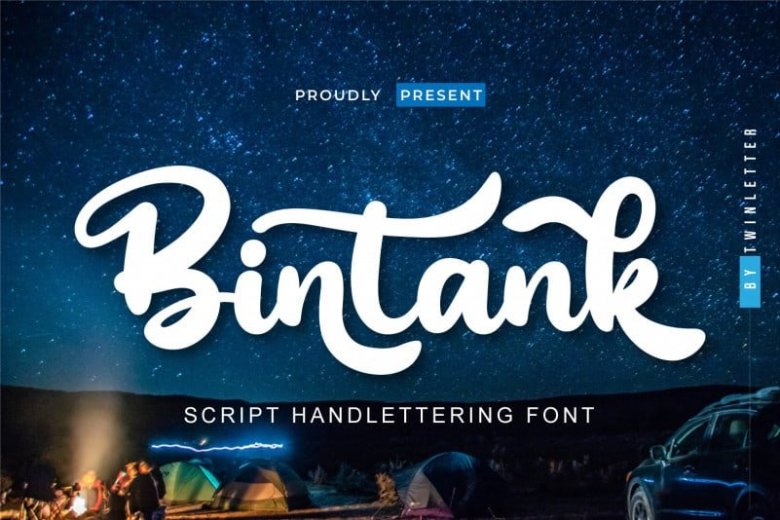
Bintank Script Font Free
Bintank Script Font is a playful script font made in freehand and abstract nuances but still beautiful and elegant when used.
This font is designed beautifully in each letter, there are alternate options in lowercase letters so that when written, it can produce words or sentences that are pleasing to the eye so that it automatically beautifies the visual appearance in your design project.
Bintank Script Font is equipped with uppercase, lowercase, numbers, punctuation marks, swhases, and several variations on each character including multi-language.